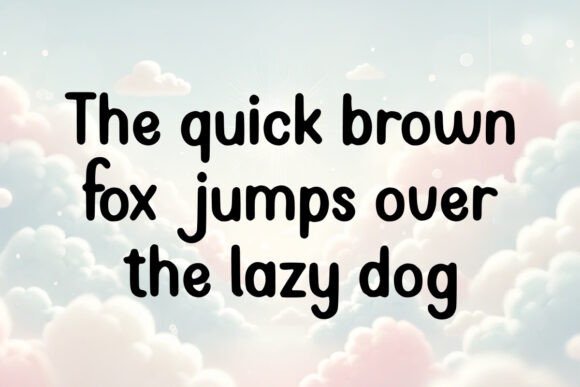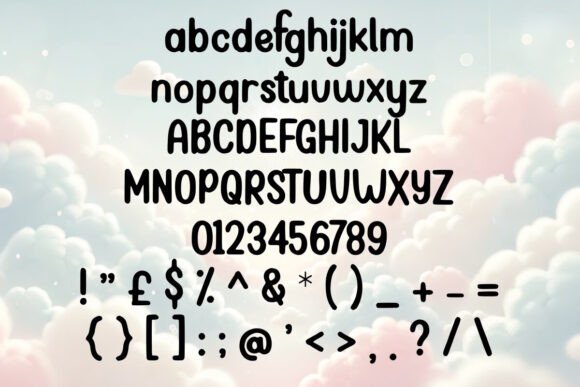
The Elusive Font: A Designer’s Journey to Discover Daydreamer
I still remember the design project that led me to discover the Daydreamer font. I was working on a whimsical branding project for a client who wanted a carefree and playful vibe. As I scrolled through font after font, nothing seemed quite right. That was until I stumbled upon Daydreamer – a fun, carefree handwritten font that felt as light as a passing thought.
First Impressions: A Review of Daydreamer Font
As soon as I started using Daydreamer, I knew I had found the perfect fit. Here’s what I love about this charming font:
- ✨ Easygoing charm: Daydreamer has a breezy, relaxed feel that’s perfect for journals, social media quotes, and dreamy stationery.
- ✅ Versatile: This font works beautifully for both digital and print projects, from doodles to branding materials.
- 💫 Unique character: Daydreamer’s slightly rounded strokes give it a distinctive personality that’s hard to find in other fonts.
Of course, no font is perfect, and Daydreamer has a few quirks:
- 🤔 Limited formal use: While Daydreamer is amazing for creative projects, it may not be the best choice for formal or professional designs.
- ⚠️ Glyph limitations: Some users have reported that the font’s glyph set is not as extensive as they’d like.
The Story Behind Daydreamer
Daydreamer was designed with the intention of capturing the carefree spirit of a passing thought. Its creator aimed to craft a font that would feel light, breezy, and creative – perfect for designers, crafters, and hobbyists looking to add a touch of whimsy to their projects.
| What type of projects is Daydreamer best suited for? | Daydreamer is perfect for creative projects like journals, social media quotes, doodles, and whimsical branding. |
| Is Daydreamer a difficult font to use? | No, Daydreamer is relatively easy to use and works well in most design platforms. |
| Can I use Daydreamer in combination with other fonts? | Yes, Daydreamer can be paired with other fonts to create a unique and interesting design. |